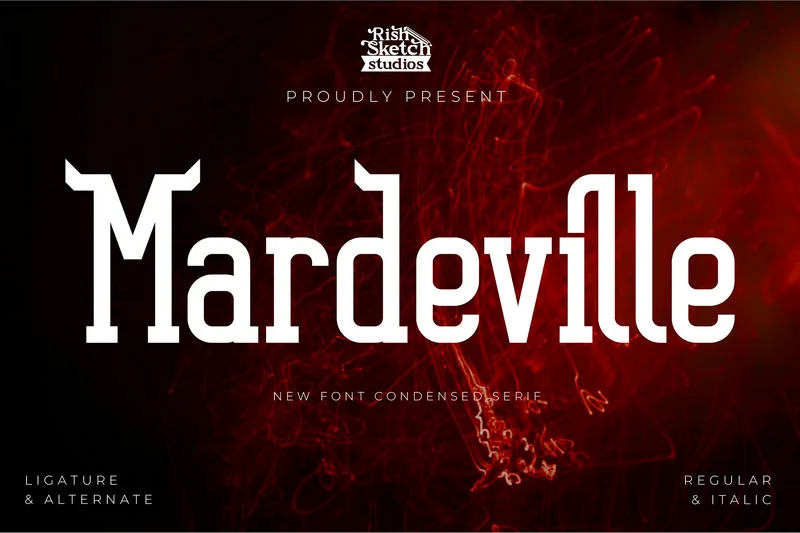
Mardeville
Mardeville – Serif Condensed Font, from Rishsketch Studios, is a premium Serif Condensed Font, perfect for any project that requires a distinctive, and premium feel.
Ligature, Alternate, & Multilingual